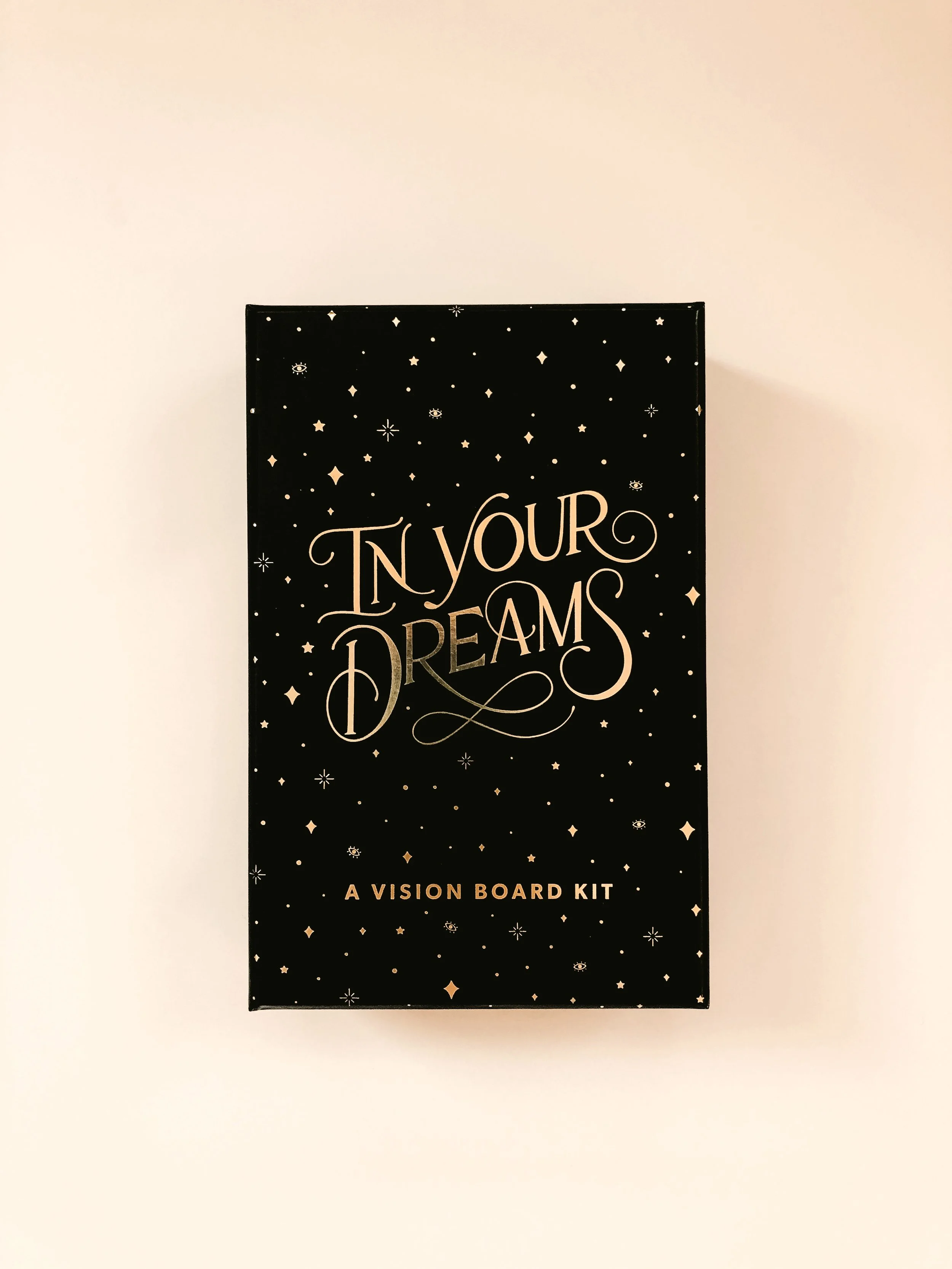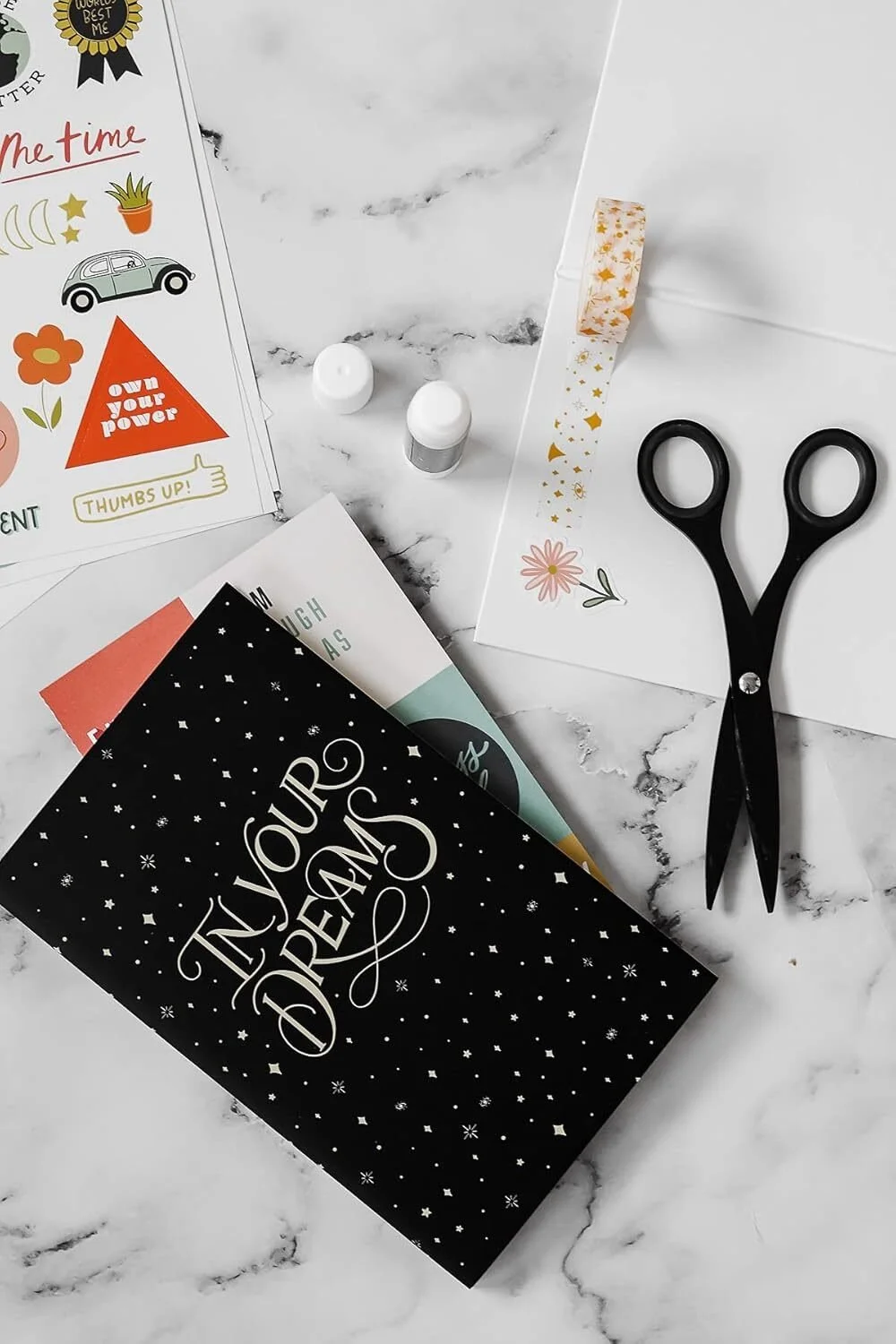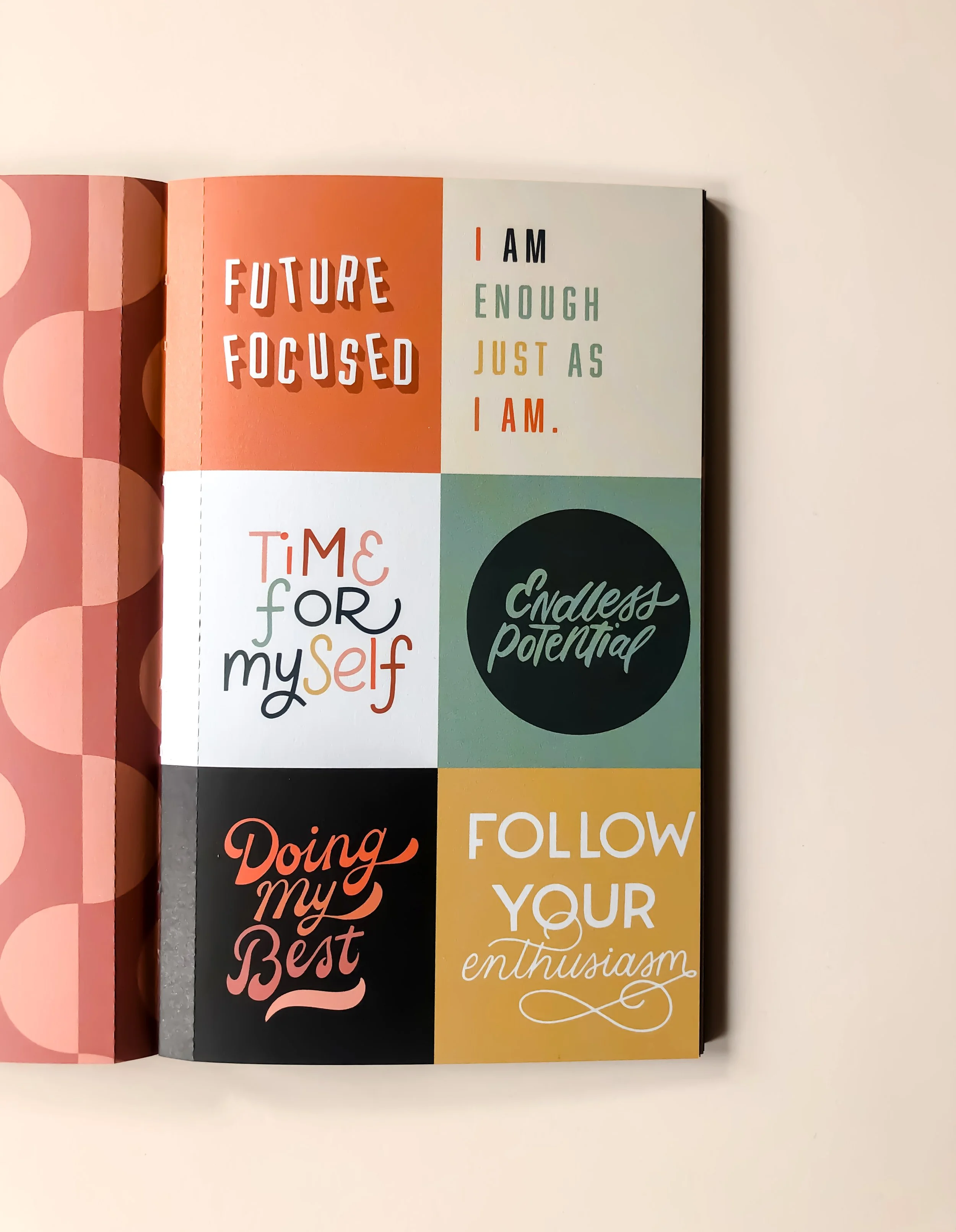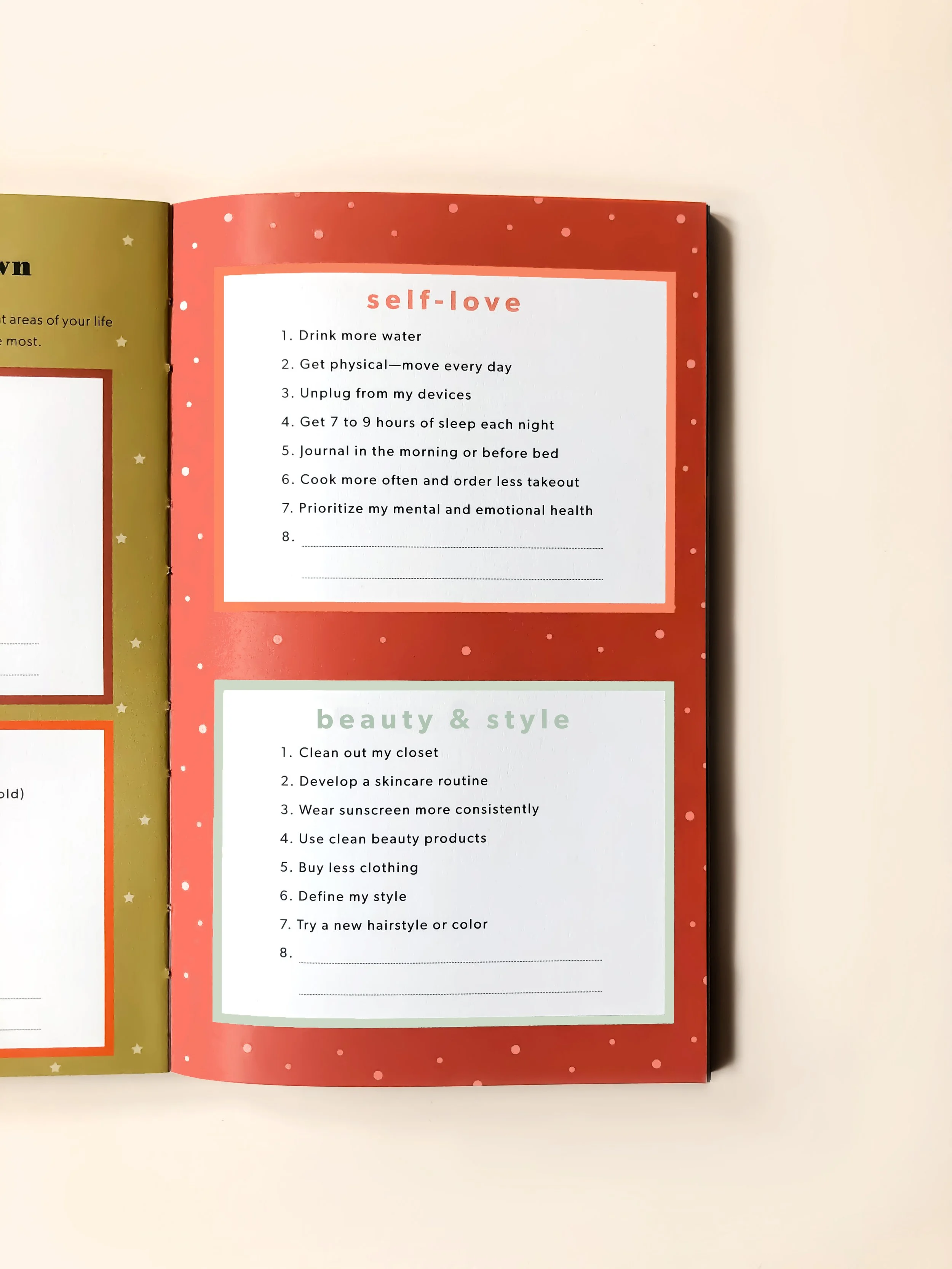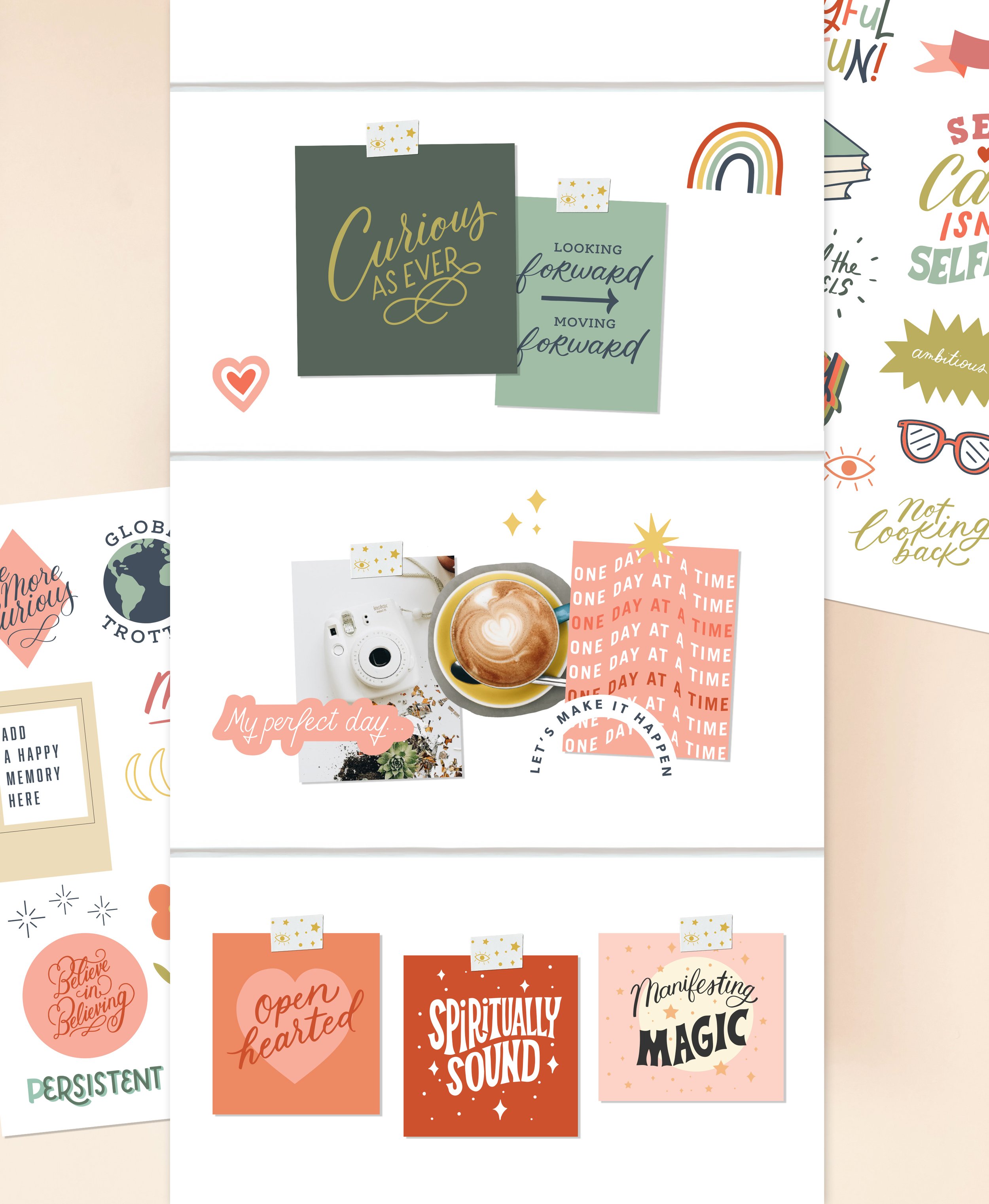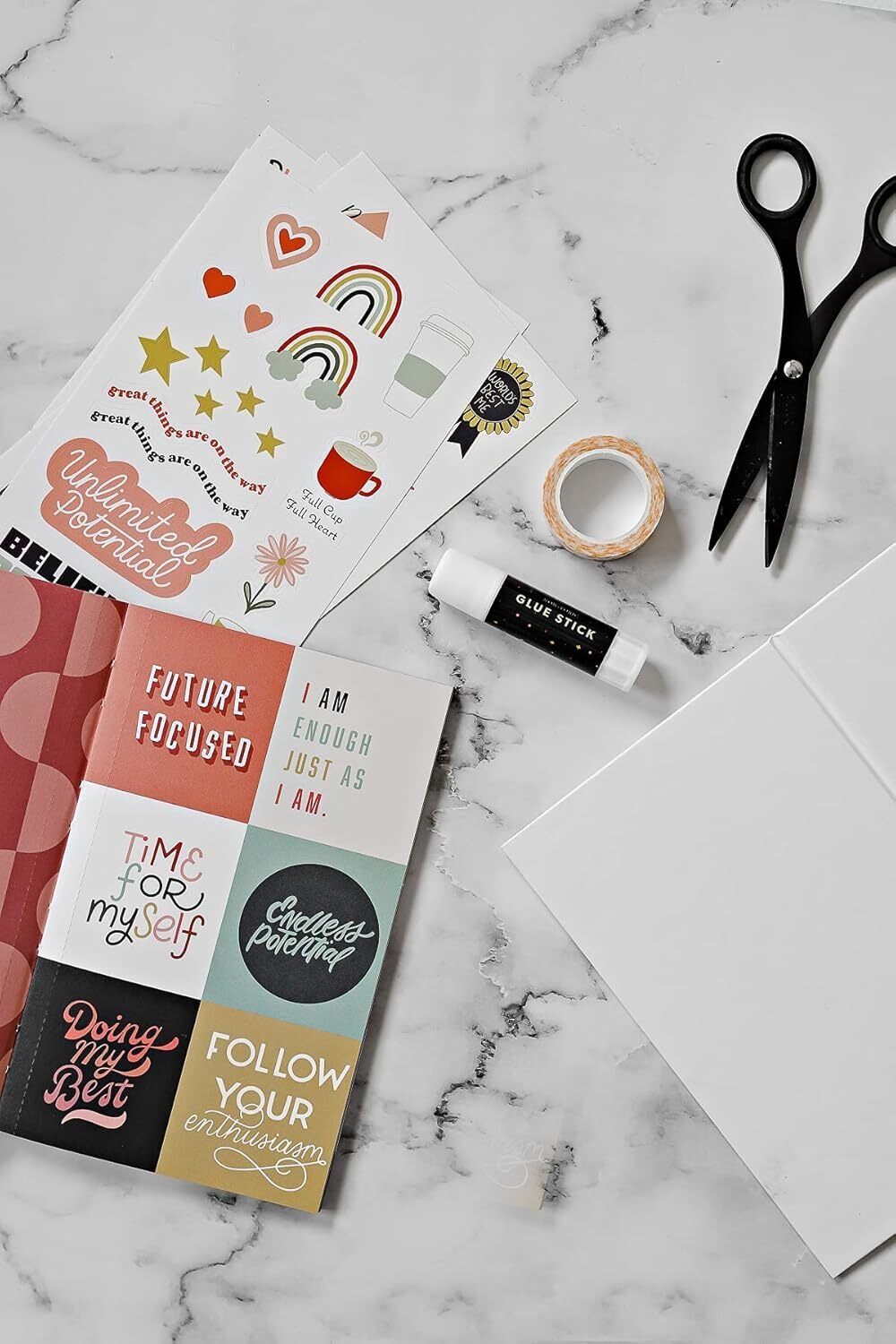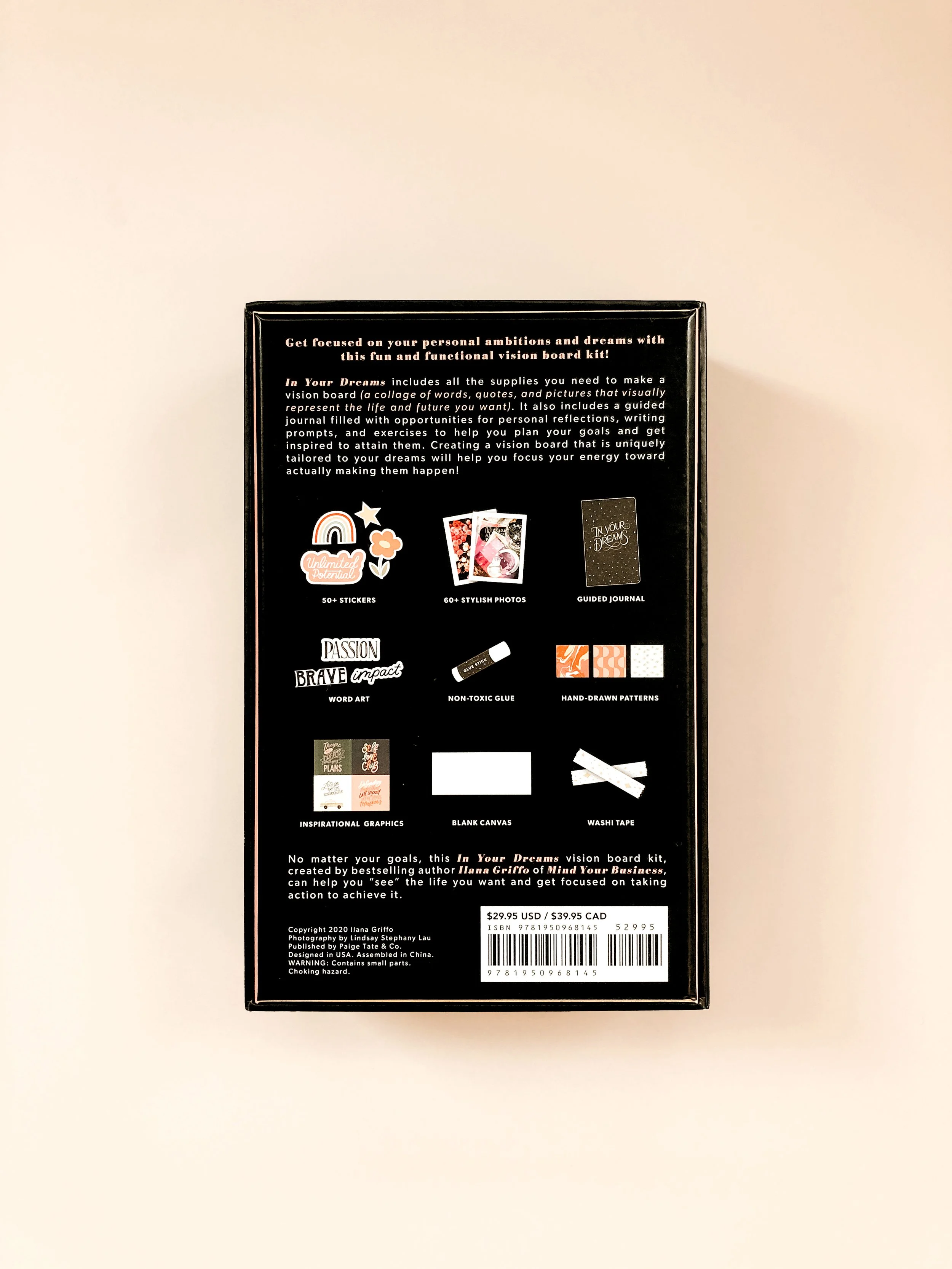
In Your Dreams Vision Board Kit
Ilana designed this vision board kit to help people "see" the life they want to create and get focused on the steps to take to achieve it. Ilana created tons of inspirational hand-drawn graphics, stickers, patterns, and a guided journal to allow for a fun, choose-your-own-adventure experience.